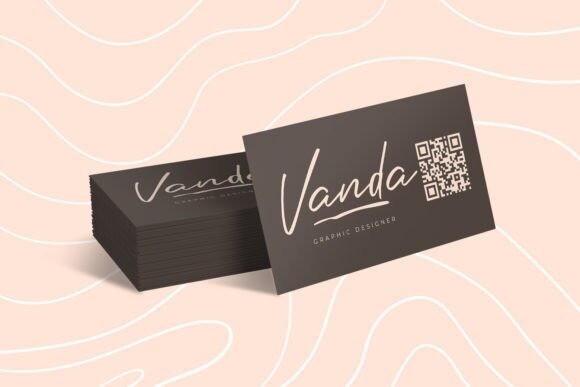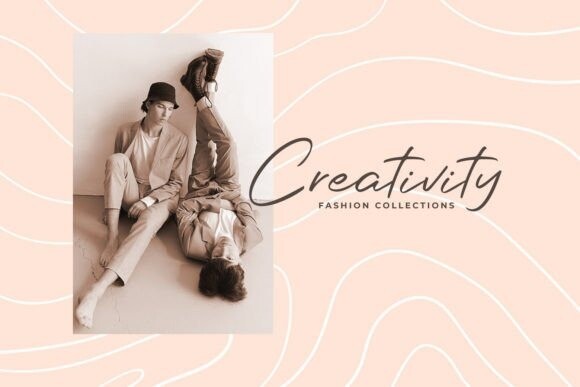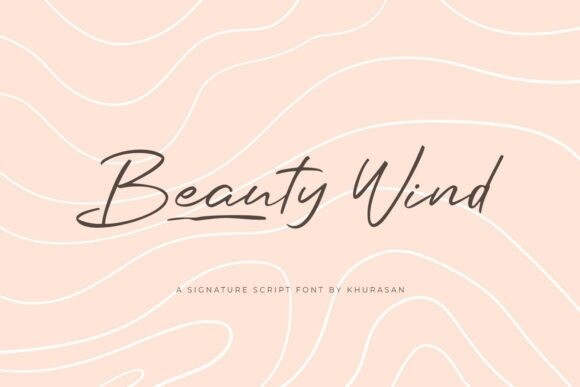
Beauty Wind Font is a script typeface meticulously crafted to emulate the fluidity of continuous handwriting. Perfect for posters, logos, magazines, book covers, banners, and many more! Get this amazing font, and use it to create lovely designs. It can easily be matched to an incredibly large set of projects, so add it to your creative ideas and notice how it makes them stand out!